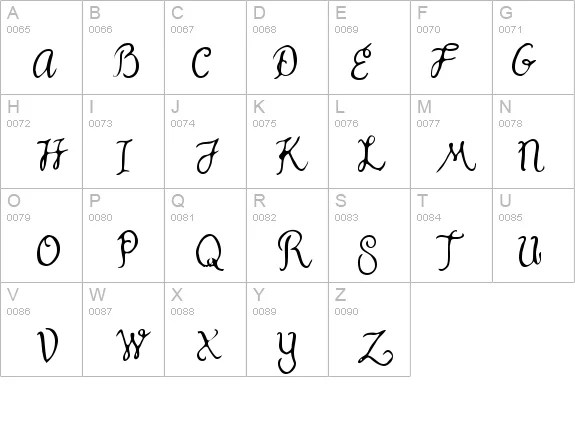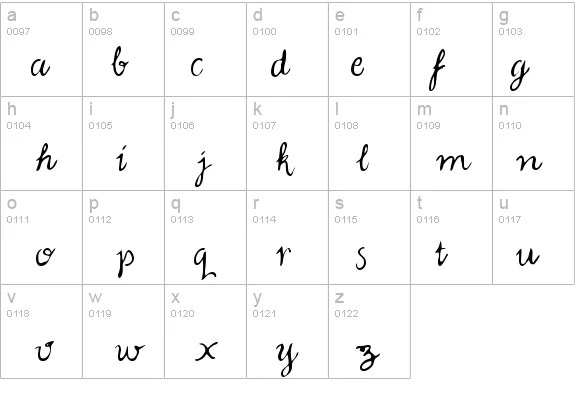
Fountain Pen Font Types. Your readers will appreciate the effort. What is the fountain pen font?
Spice up your letters and journals by using fountain pens with the ink of different scents. March 4, 2001, which belongs to the family fountain pen frenzy (regular tracing). For use by the fountain pen network community.
By writing in a way that is different from how you currently write, you can ditch some of the bad habits you currently have and work on developing good habits. Fountain wedding script calligraphy lettering invitation stationery signature pen handwritten expressive elegant cursive vintage retro calligraphic sign painting love swashes stationary romantic luxury handwriting flourished display It is distinguished from earlier dip pens by using an internal reservoir to hold ink, eliminating the need to repeatedly dip the pen in an inkwell during use.
True Type Handwriting Font Created And Donated By Corien B.
It Was Expressly Designed For Informal Applications Such As Invitations, Notations, Side Boxes And Hand Written Personal Cards.